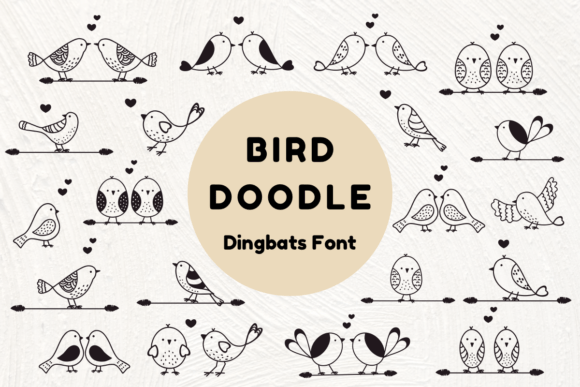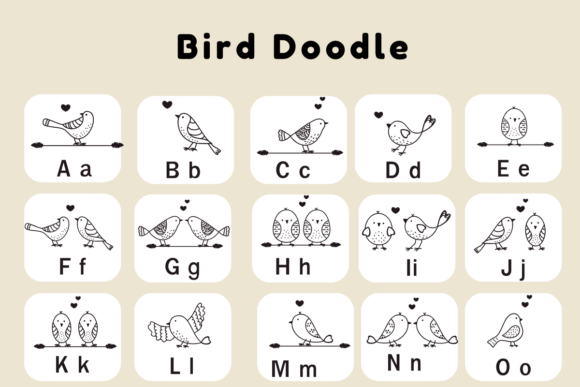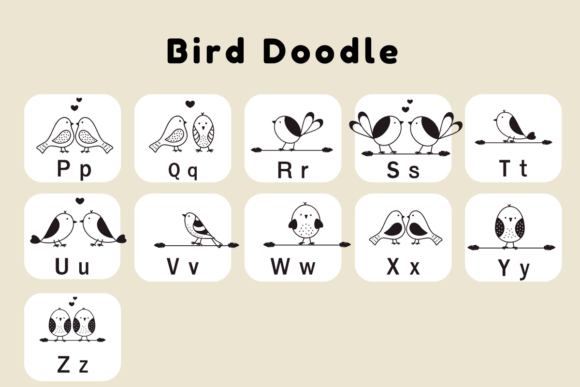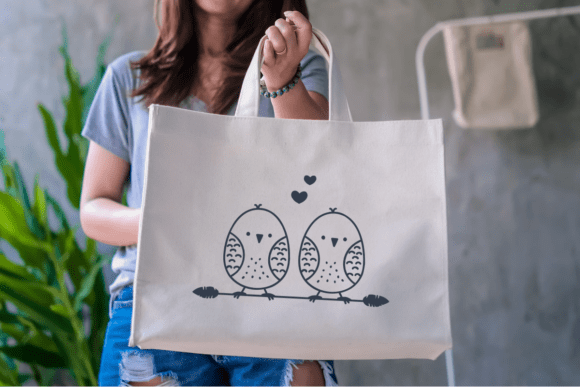
Bird Doodle Font: Cute Dingbats for Cricut & Craft Projects!
About the Bird Doodle Font
The wait is over! The incredible Bird Doodle Font is now available for your design toolkit. Bird Doodle is a dingbats font with theme with a sketch style. This font can enhance your creative projects such as wedding invitations, DIY, crafts, decorations, logos, and many other creative ideas.
Bird Doodle Font Usage Examples
Bird Doodle Font Example